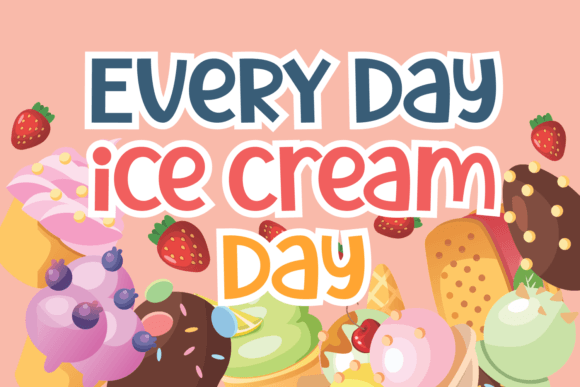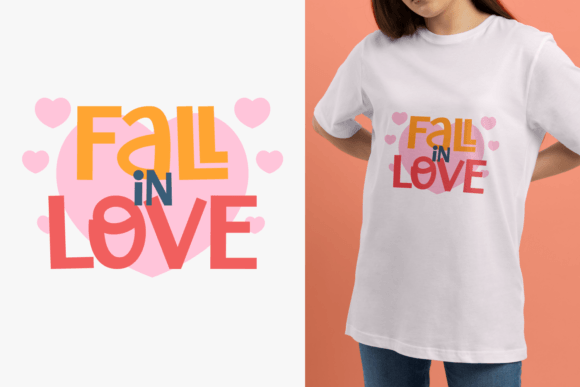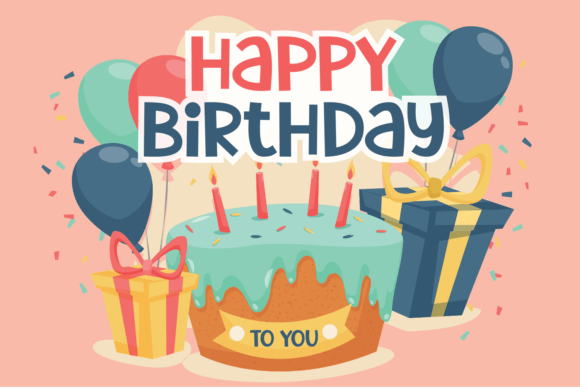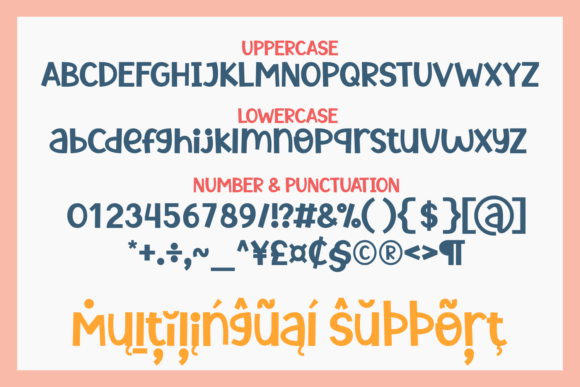
Welcome to the World of Hello Monica Font
You know that moment when you’re brainstorming ideas for your next project, and everything just clicks? The colors, the layout, the font – it all comes together in perfect harmony. That’s the magic of design. And, let’s be honest, a great font can make all the difference. This is where Hello Monica Font comes in – a cute and playful handwritten display font that’s sure to elevate your creations.
With Hello Monica Font, you’ll never run out of inspiration. Whether you’re designing a birthday card, a wedding invitation, or a social media post, this font is the perfect addition to your library. Its versatility and charm make it a valuable asset for designers of all levels. Say hello to your new favorite font – Hello Monica Font – and get ready to take your designs to the next level.
Hello Monica Font Key Features
- Font Family: Hello Monica Font is a sans-serif font family designed for digital use.
- Unique Characteristics: Hello Monica Font features a clean and modern design with subtle rounded edges, making it perfect for digital interfaces and user-friendly applications.
Hello Monica Font Review
I recently had the chance to work with the Hello Monica font, and I must say it’s a unique and charming addition to any design project. Here are some of the things that stood out to me:
- ✨ The font’s playful and whimsical feel is perfect for projects that need a touch of personality.
- ✨ The font’s high x-height makes it easy to read, even at smaller sizes.
- ✨ The font’s extensive character set includes a wide range of languages and special characters.
However, there are a few limitations that I’d like to mention:
- ⚠️ The font’s kerning can be a bit inconsistent in certain combinations, which can affect readability.
- ⚠️ The font may not be suitable for formal or professional projects, as its playful feel may come across as unprofessional.
- ⚠️ The font’s large file size may make it difficult to use in projects with strict file size limitations.
Overall, I think the Hello Monica font is a great choice for projects that need a lighthearted and approachable feel. While it may have some limitations, its unique personality and high x-height make it a great addition to any designer’s toolkit.
Tips for Getting the Most Out of Hello Monica Font
To get the most out of Hello Monica Font, use it for:
- Crafting unique and playful headings.
- Adding a touch of elegance to your designs.
- Creating a consistent brand identity.
Hello Monica Font is commonly used for:
- Branding and logos.
- Food and beverage packaging.
Alternatives to Hello Monica Font for Designers
Great Vibes Font is a modern, elegant script font designed by Handmade Font. It’s perfect for creating a sense of sophistication and luxury in your designs. When to use: Luxury brands, high-end products, or any project that requires a touch of elegance.
Compared to Hello Monica Font, Great Vibes Font has a more refined and sophisticated feel. While Hello Monica Font has a playful, handwritten feel, Great Vibes Font is more polished and elegant.
Carolyna Pro Font is a modern, elegant sans-serif font designed by Carolyna. It’s perfect for creating a sense of simplicity and sophistication in your designs. When to use: Modern brands, tech companies, or any project that requires a clean and minimalist look.
Compared to Hello Monica Font, Carolyna Pro Font has a more modern and sleek feel. While Hello Monica Font has a playful, handwritten feel, Carolyna Pro Font is more straightforward and easy to read.
Alex Brush Font is a elegant, handwritten font designed by Lauren Tuttle. It’s perfect for creating a sense of warmth and personality in your designs. When to use: Creative projects, art galleries, or any project that requires a touch of whimsy.
What is the recommended font size and line height for Hello Monica Font?
The recommended font size for Hello Monica Font varies depending on the context and application. For body text, a font size between 12 and 14 points is suitable. For headings, use font sizes between 18 and 24 points. For optimal readability, use a line height of at least 1.2 to 1.5 times the font size.